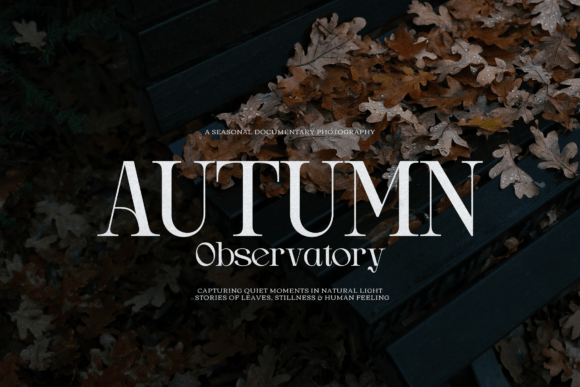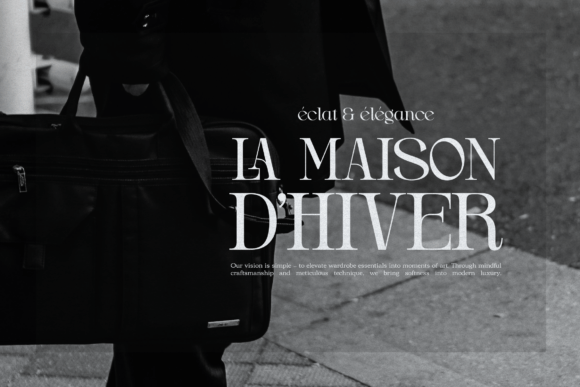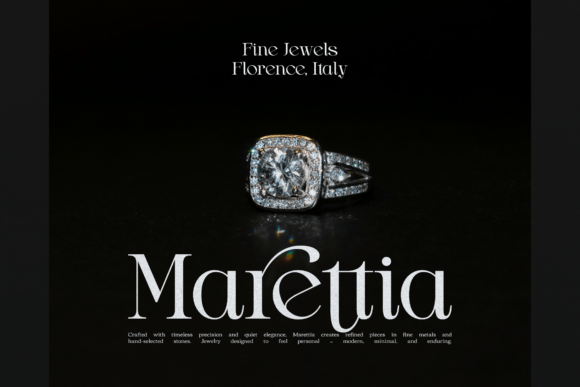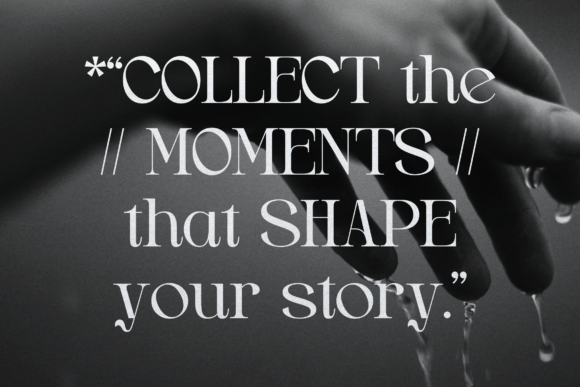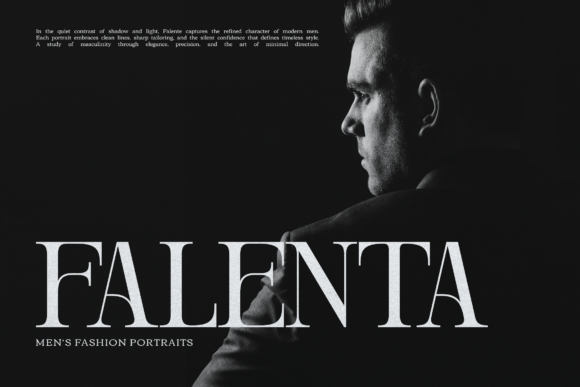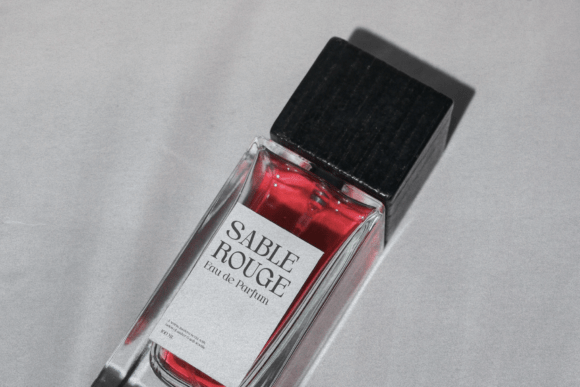
Introducing Drogel Font: The Epitome of Luxury and Sophistication
In the realm of typography, few fonts manage to convey the essence of luxury and sophistication as effectively as Drogel. This majestic display serif typeface is designed to command attention with its dramatic contrast and beautifully exaggerated swashes and curves, making it an ideal choice for premium branding projects that demand a touch of elegance and refinement.
The Design Philosophy Behind Drogel
Drogel’s design philosophy revolves around the concept of vintage luxury and high fashion. Its elegant lines, sweeping curves, and intricate swashes evoke a sense of opulence and grandeur, perfect for creating a lasting impression. The font’s sophisticated aesthetic is reminiscent of classic luxury brands, making it an excellent fit for high-end cosmetic packaging, fashion photography titles, luxury event invitations, and magazine covers.
Key Features of Drogel Font
- Alternates and Ligatures: Drogel includes a range of alternates and ligatures, offering designers maximum flexibility and refined typographic options. These features allow for creative experimentation and help to create unique, bespoke designs.
- Multilingual Support: The Drogel typeface boasts extensive multilingual support, making it an excellent choice for global brands and designers working on international projects.
- PUA-Encoding: The font is PUA-encoded, ensuring effortless access to all glyphs, swashes, and alternate characters. This feature allows designers to customize their creations with ease, without requiring additional technical expertise.
Applications for Drogel Font
Drogel’s versatility and luxurious aesthetic make it suitable for a wide range of applications, including:
- High-End Cosmetic Packaging: Create stunning packaging designs that exude luxury and sophistication.
- Fashion Photography Titles: Add a touch of glamour to your fashion photography titles and make them stand out.
- Luxury Event Invitations: Design elegant and refined invitations for high-end events, such as weddings, galas, and charity functions.
- Magazine Covers: Create eye-catching magazine covers that demand attention and convey a sense of luxury and sophistication.
The Timeless Appeal of Drogel
The Drogel font’s swooping, delicate terminals guarantee a timeless, high-class aesthetic that transcends fleeting design trends. Its elegant lines and curves evoke a sense of refinement and sophistication, making it an excellent choice for designers seeking to create enduring, high-end designs.
Tips for Working with Drogel Font
- Experiment with Swashes and Alternates: Take advantage of Drogel’s extensive swashes and alternates to create unique and customized designs.
- Pair with Complementary Fonts: Combine Drogel with complementary fonts to create visually appealing typographic hierarchies.
- Pay Attention to Kerning and Tracking: Ensure optimal kerning and tracking to maintain the font’s elegant appearance and avoid visual inconsistencies.
Drogel font is a masterpiece of typographic design, offering a unique blend of luxury, sophistication, and elegance. Its dramatic contrast, beautifully exaggerated swashes and curves, and extensive features make it an ideal choice for premium branding projects. Whether you’re a designer, craftsperson, or simply someone who appreciates beautiful typography, Drogel is sure to inspire and elevate your creative endeavors.